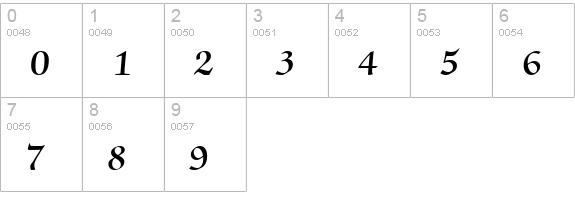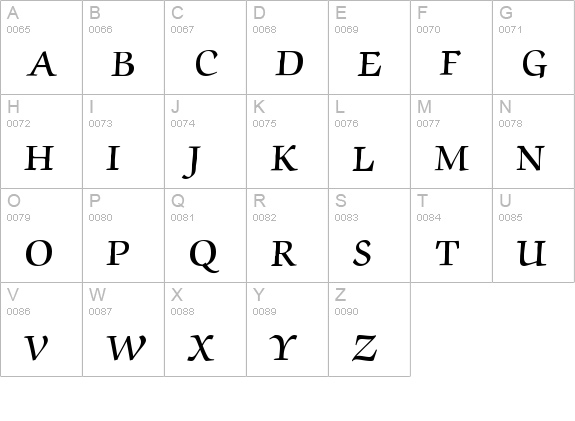
Zapf Chancery Demi BT is a sub-bold, structured variant in the Zapf typeface family \xE2\x80\x94 well suited to sub-headlines and emphasised passages.
Zapf Chancery Demi BT is an elegant and sophisticated font that exudes a sense of timeless beauty and class. Its graceful curves and delicate strokes make it perfect for adding a touch of refinement to any project. The bold weight of this font gives it a strong presence while still maintaining a sense of elegance. What sets Zapf Chancery Demi BT apart is that it is free for personal and commercial use, making it a versatile choice for a wide range of design projects. Whether you are creating invitations, signage, or branding materials, this font will add a touch of sophistication to your work. For your convenience, Zapf Chancery Demi BT is available to download for free at FontsMarket.com. Take advantage of this opportunity to enhance your designs with this beautiful and versatile font.